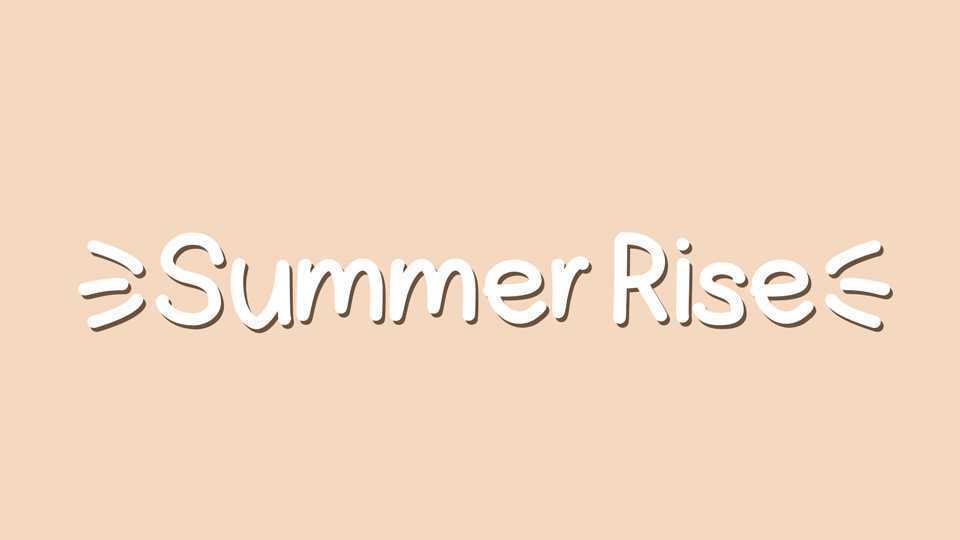
Download Summer Rise font, the typeface that embodies the timeless appeal of hand-drawn comics with a simple, clean aesthetic. Crafted with the spontaneity and whimsy of comic book lettering, making it ideal for designs that demand a touch of lighthearted charm and legibility.